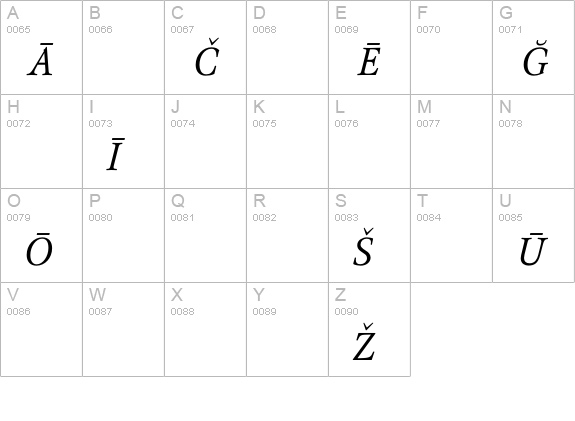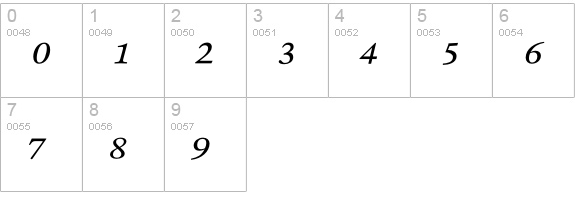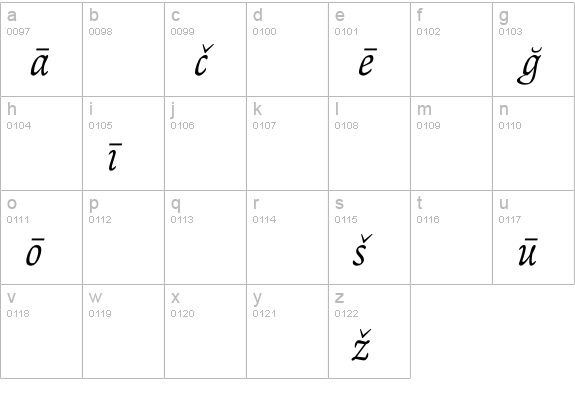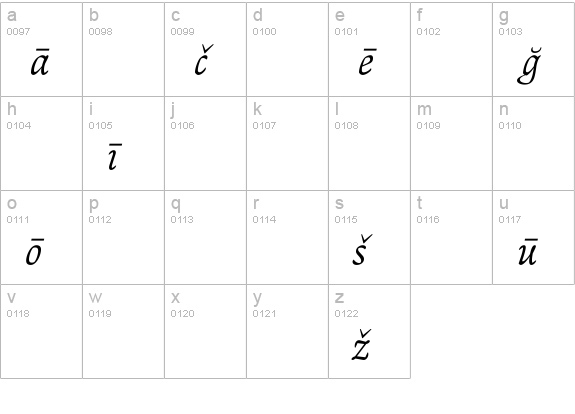
RenardNo3-ItalicPi is a stylish and elegant font that exudes sophistication and charm. With its slanted and italicized design, this font adds a touch of elegance to any project or design. Its sleek and flowing lines give a sense of movement and grace, making it perfect for adding a touch of sophistication to invitations, logos, branding materials, and more. RenardNo3-ItalicPi is not just beautiful, but it is also versatile. Whether you're designing a wedding invitation, creating a logo for a luxury brand, or designing a book cover, this font will elevate your design and make it stand out. And the best part? RenardNo3-ItalicPi is free! That's right, this stunning font is freely available to download at FontsMarket.com. Now you can add a touch of elegance and sophistication to your designs without breaking the bank. So why wait? Download RenardNo3-ItalicPi today and let your creativity soar. Whether you're a professional designer or just starting out, this font is sure to make a lasting impression. Don't miss out on this amazing opportunity to enhance your designs with a free, stylish, and elegant font.